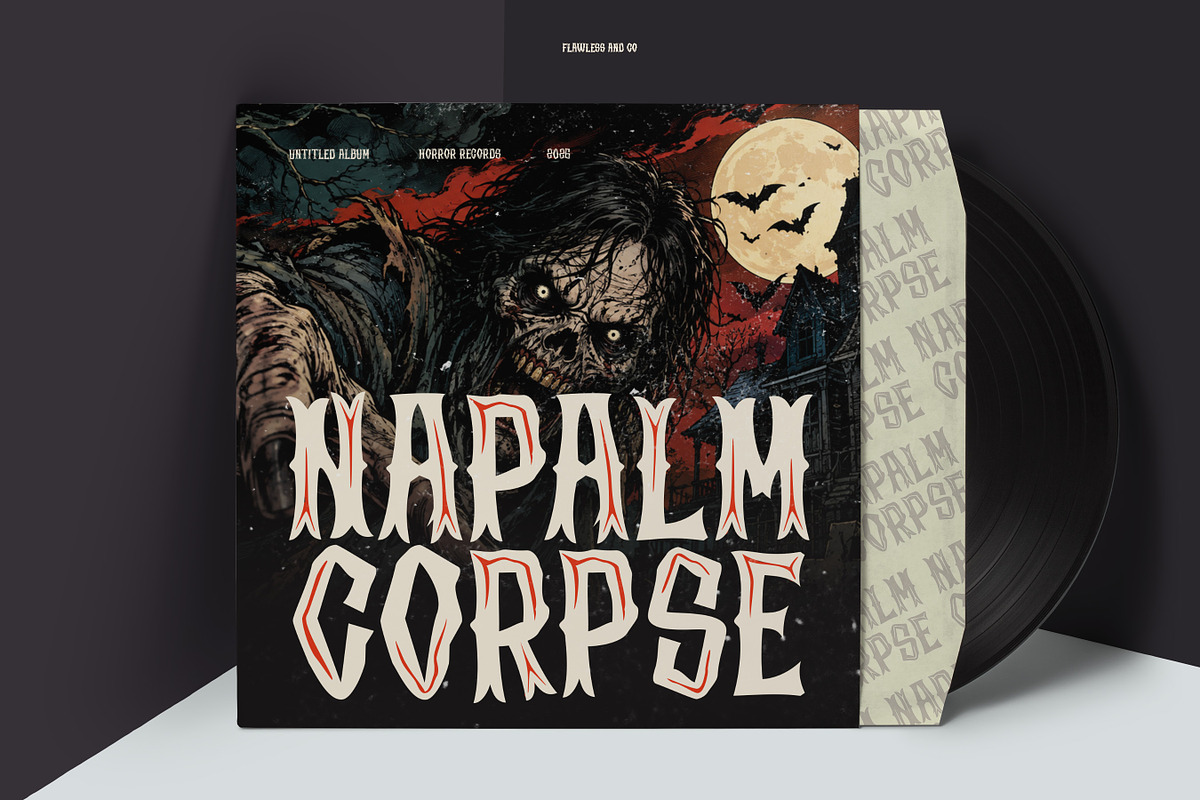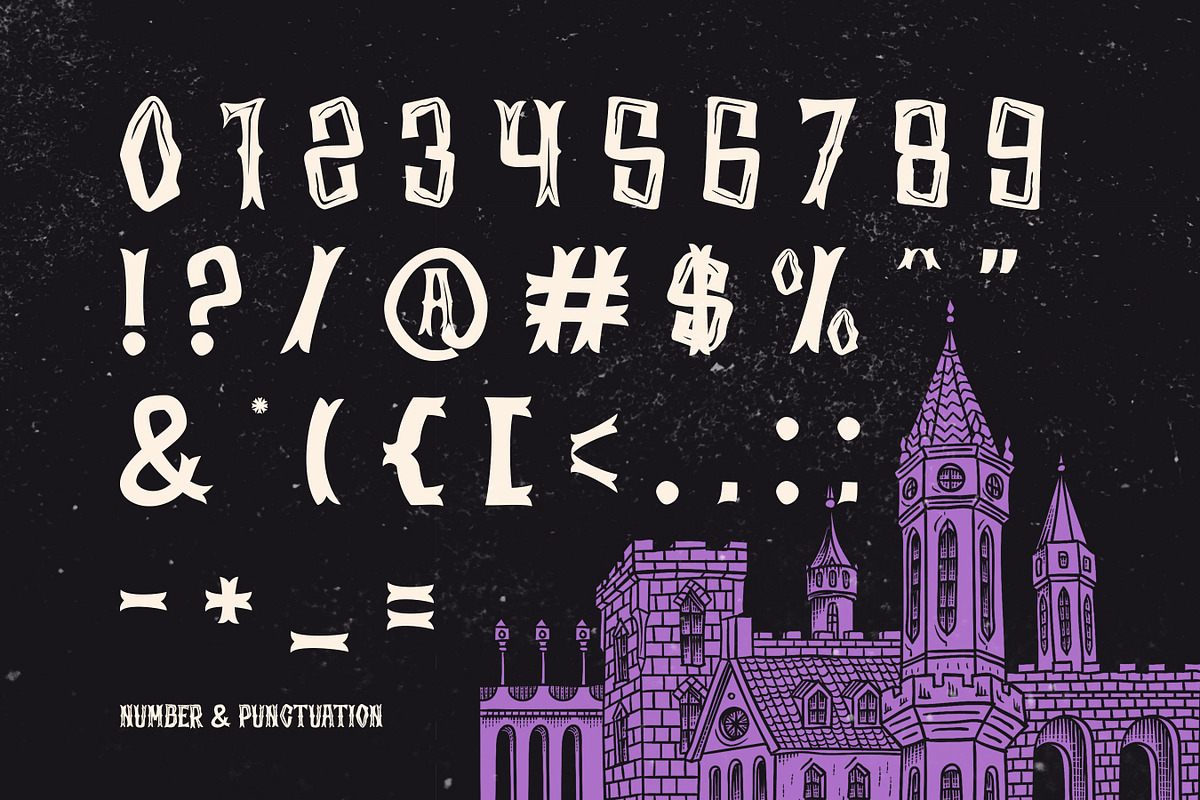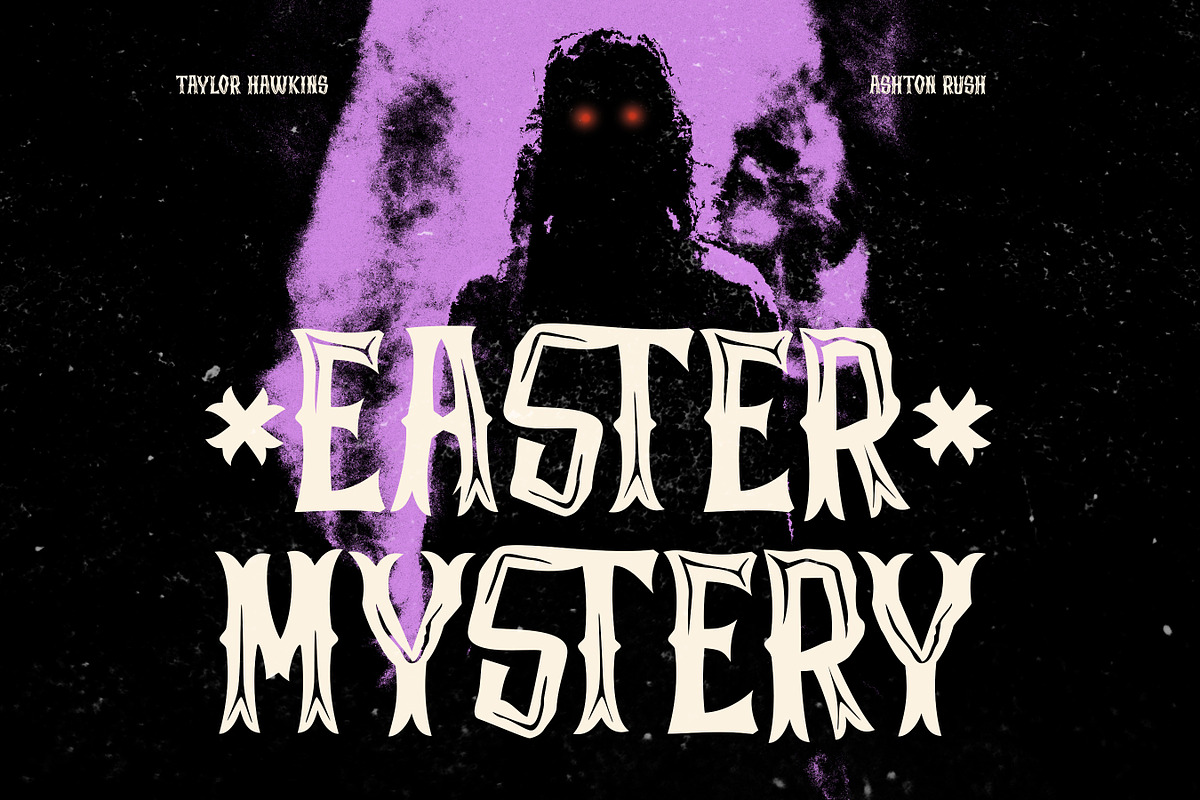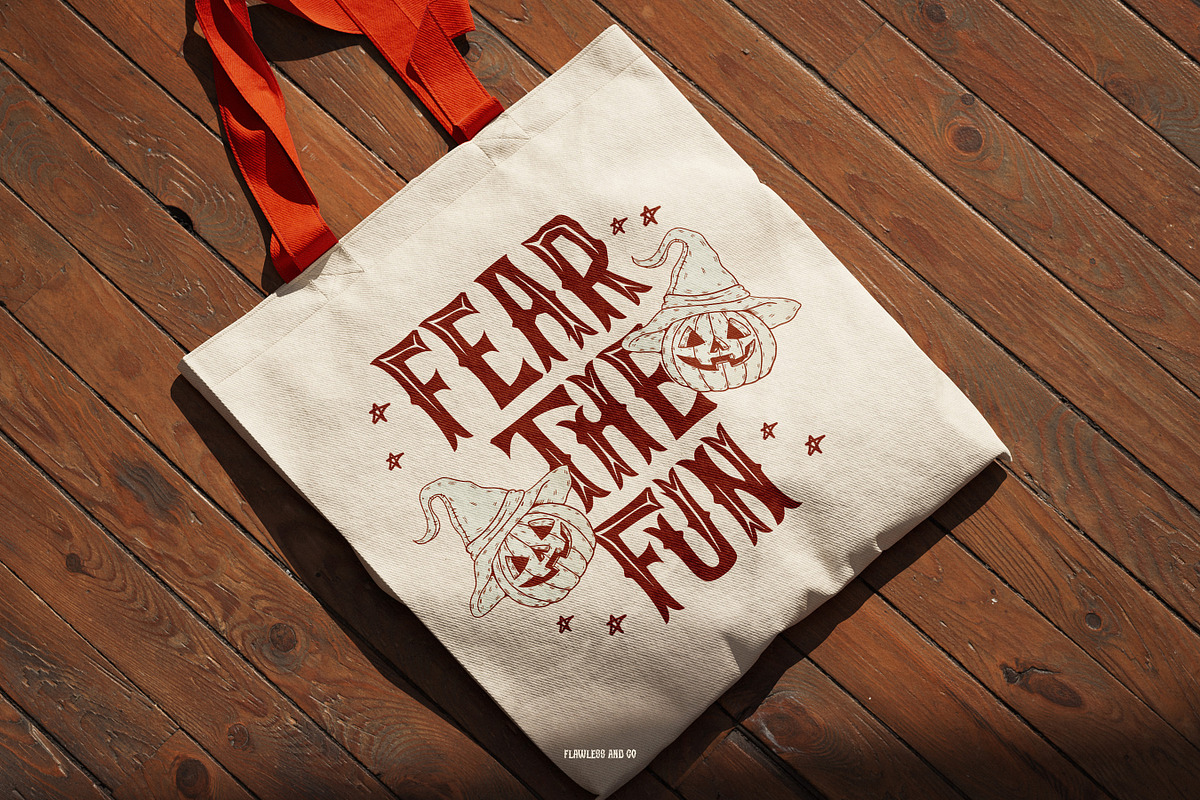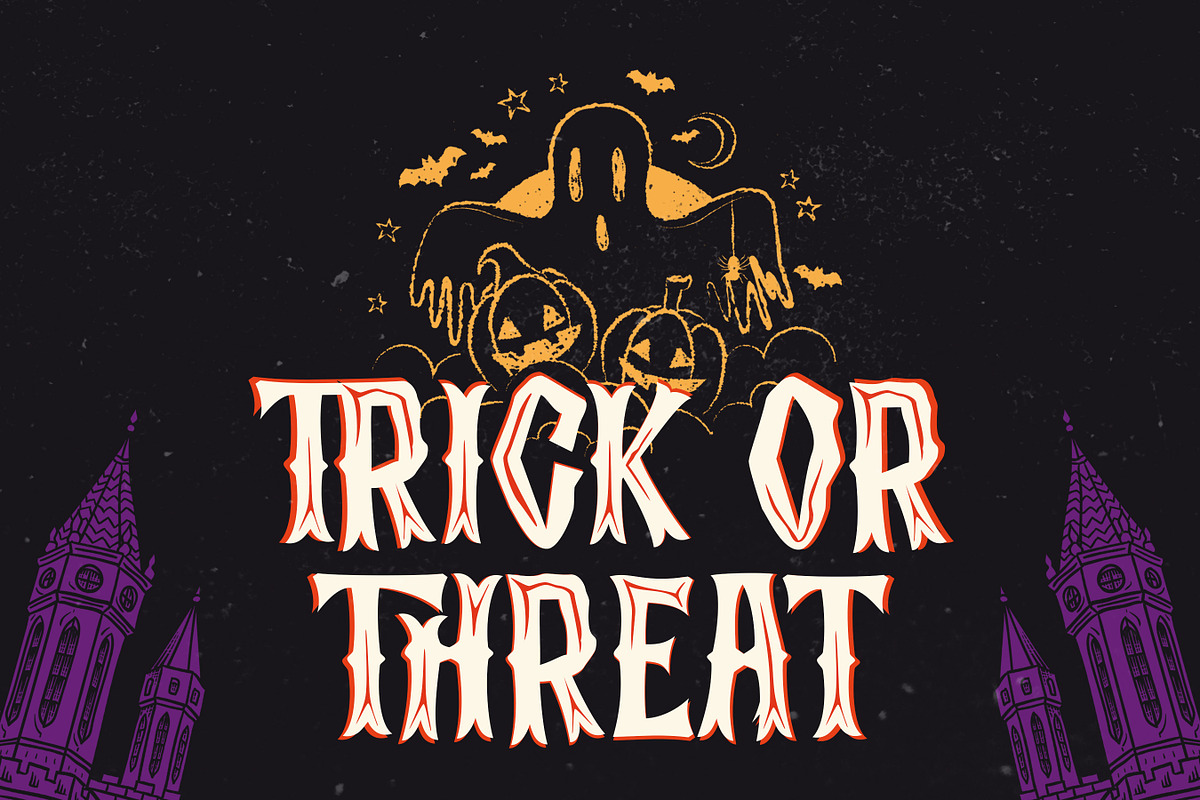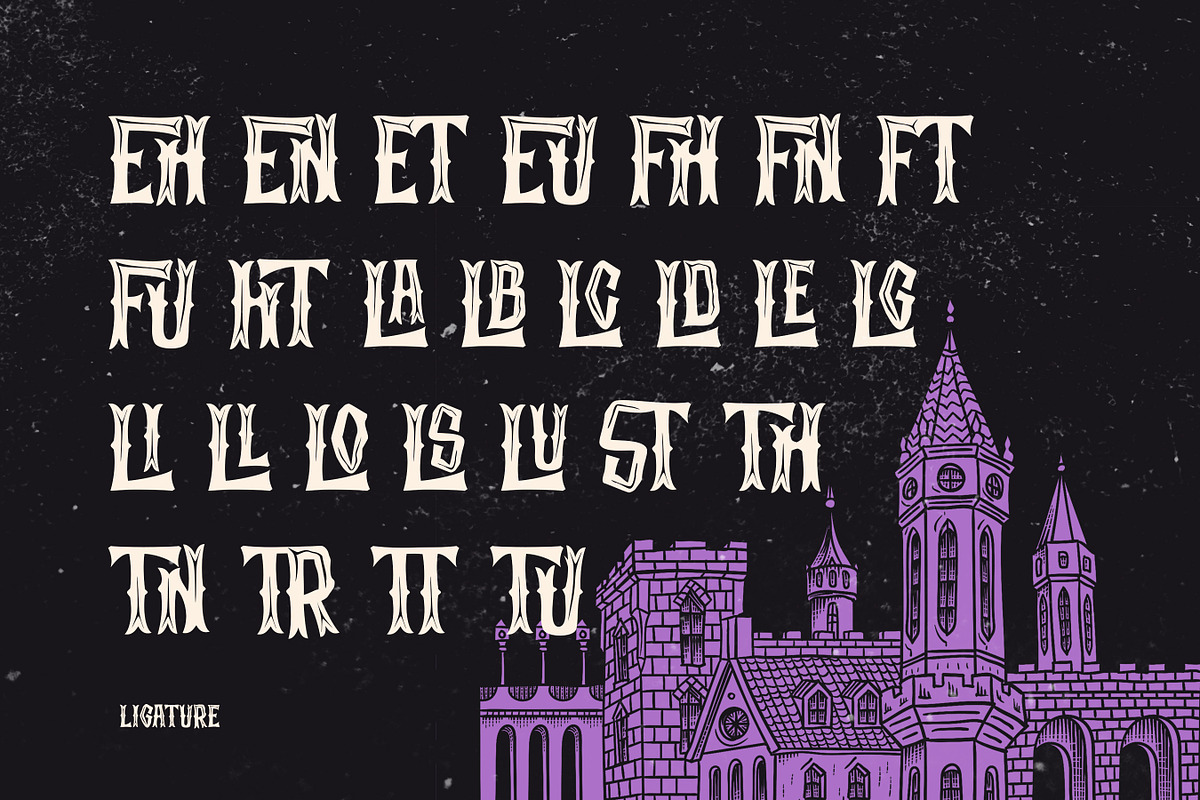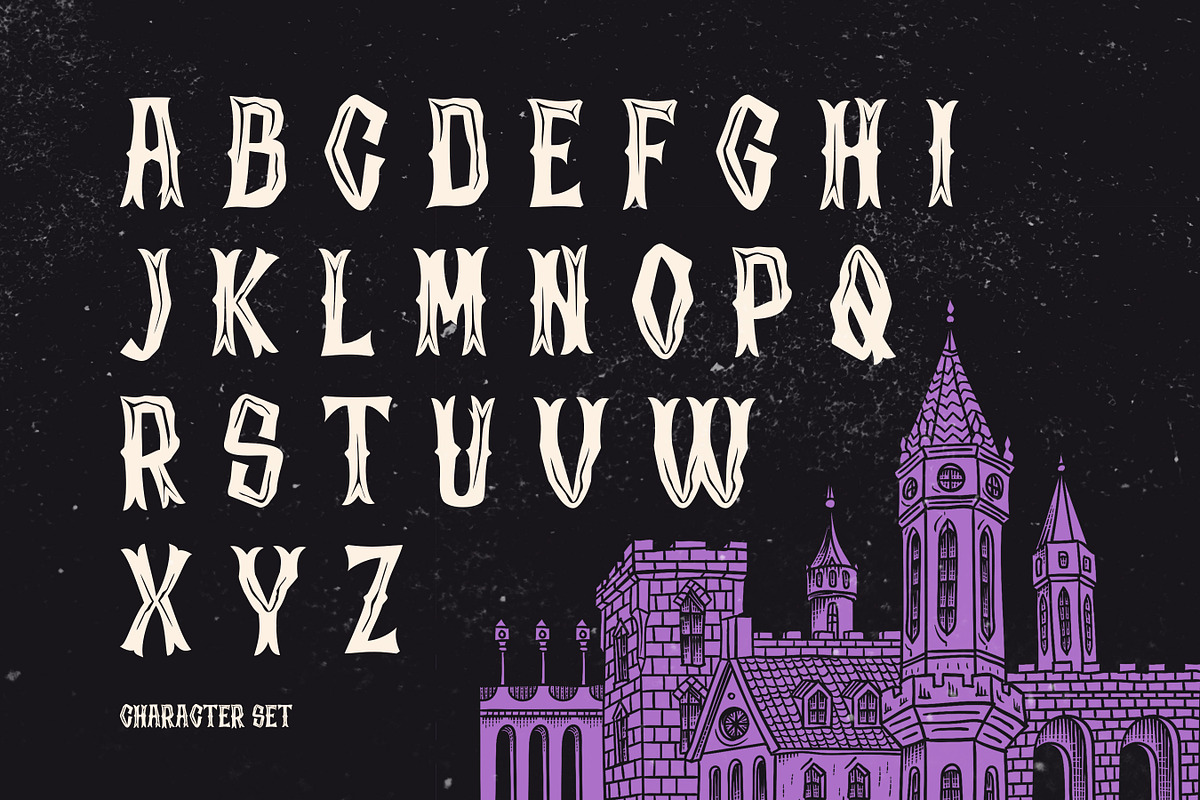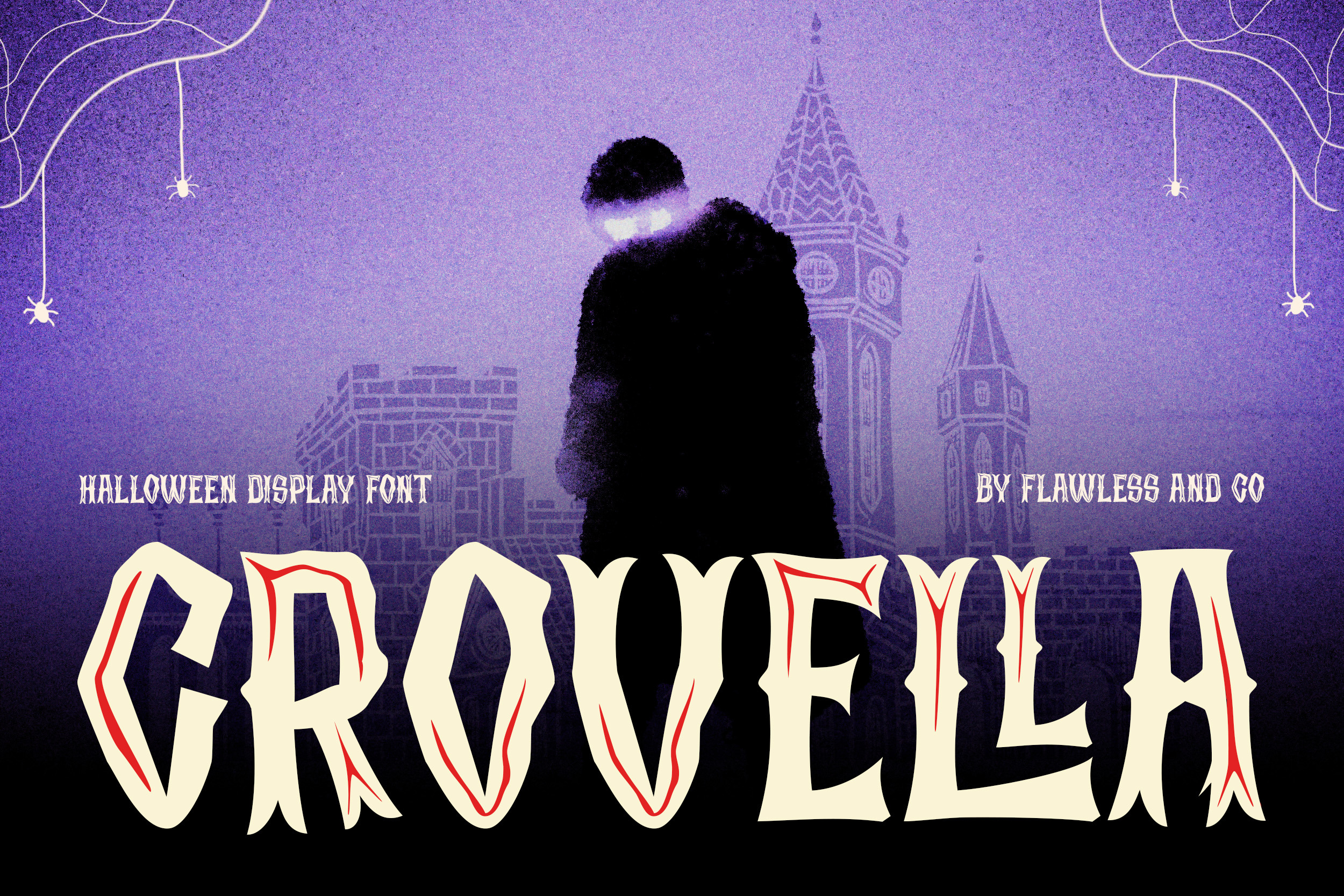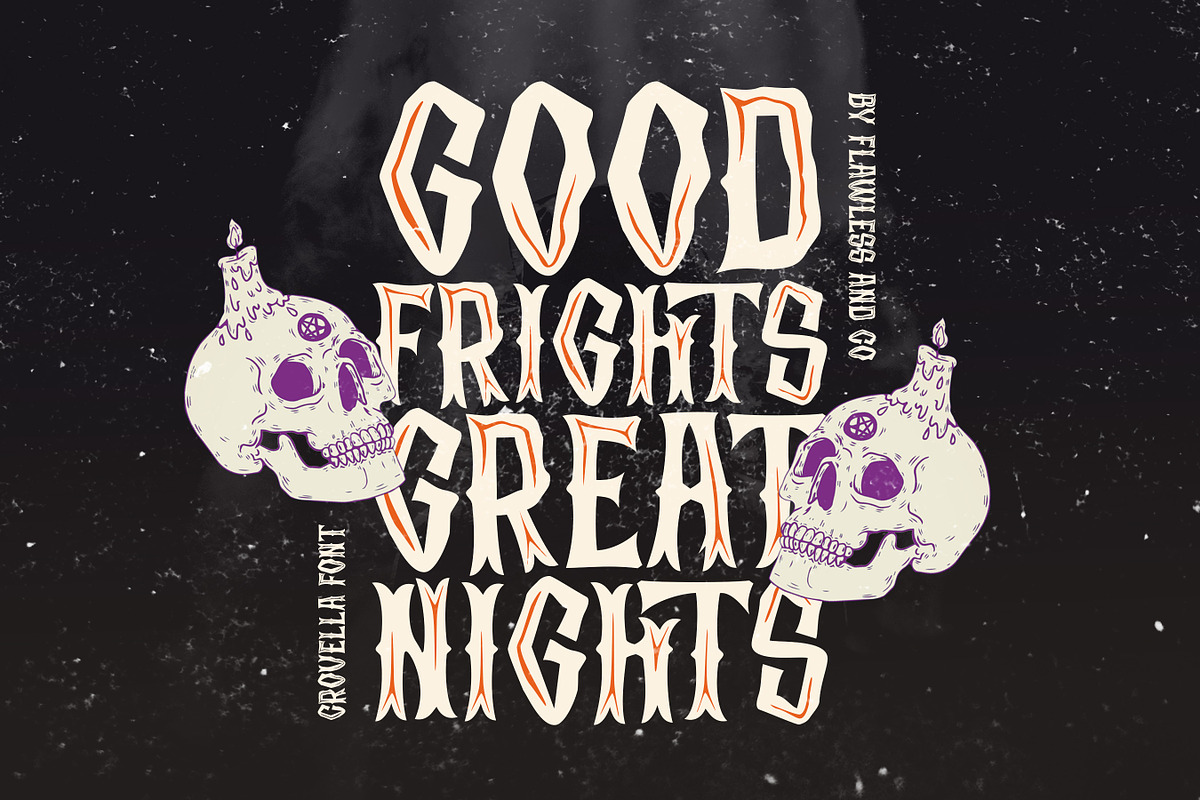
Crovella - Halloween Display Font
Crovella is a Halloween display font with a dark, horror, and decorative character. Its distinctive letterforms are designed for seasonal typography, combining a strong display structure with a spooky visual atmosphere suitable for Halloween-themed designs.
The font is designed to work effectively at large sizes, making its unique shapes suitable for headlines, titles, posters, and promotional graphics. Its Halloween-inspired character can add a mysterious and festive tone to both digital and print-based design projects.
Uppercase & Lowercase Alternates & Ligatures Numerals & Punctuation Multilingual Support
Crovella is suitable for graphic designers, illustrators, creative studios, event organizers, entertainment brands, seasonal businesses, and content creators looking for a Halloween display font with a distinctive and decorative visual character.